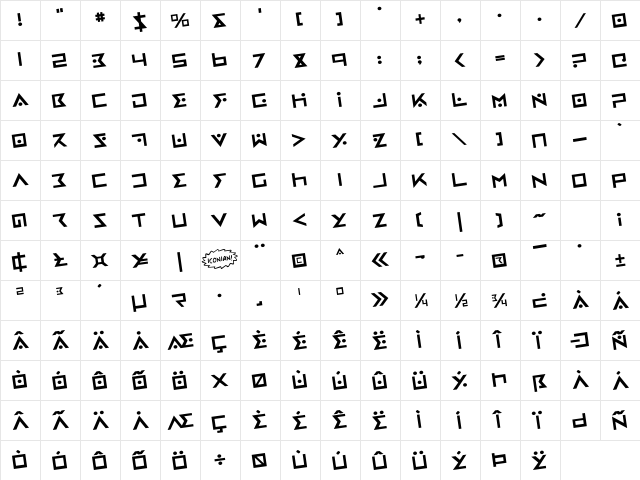
Iron Cobra Rotated Regular
Design Context for Iron Cobra Rotated
Iron Cobra Rotated is a composed and adaptable typeface that performs quietly and consistently across a wide range of design contexts.